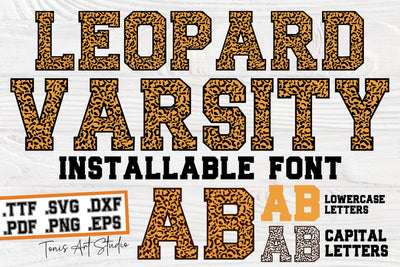
Leopard Varsity Font | Leopard Font SVG TTF | Varsity Letter
Transform your creative projects with our versatile **Leopard Font Varsity Letters**! This unique collection includes SVG, TTF, PNG, DXF, EPS, and PDF files, providing you with a variety of formats to suit your design needs. Perfect for creating custom apparel, home decor, digital designs, and more, this distinctive leopard print combined with classic varsity styling will add a bold and trendy touch to all your crafts.